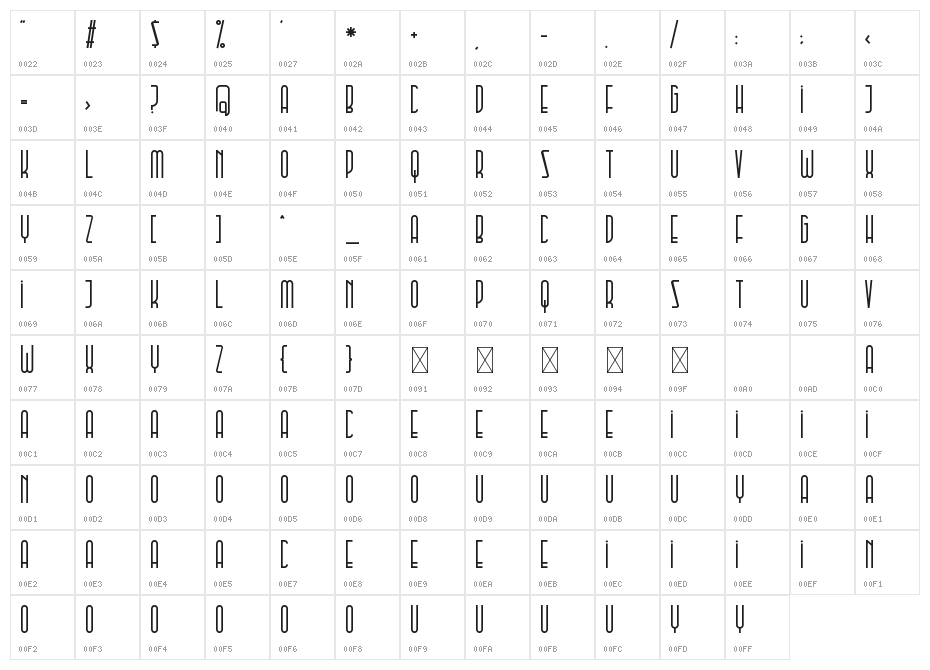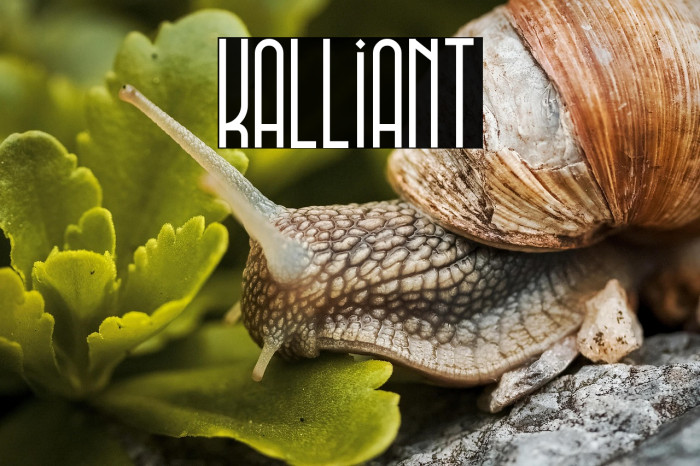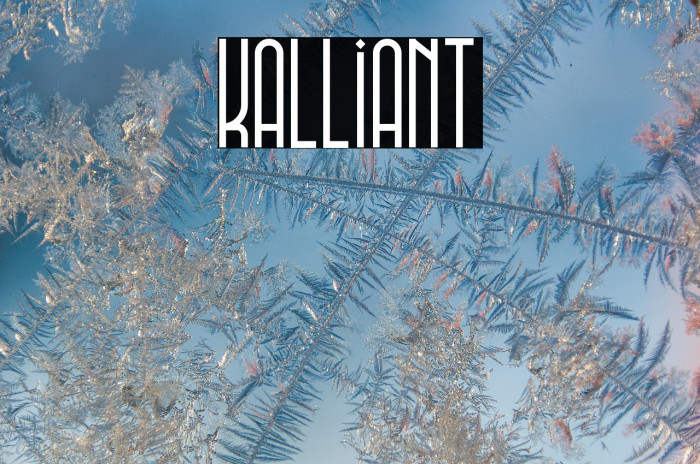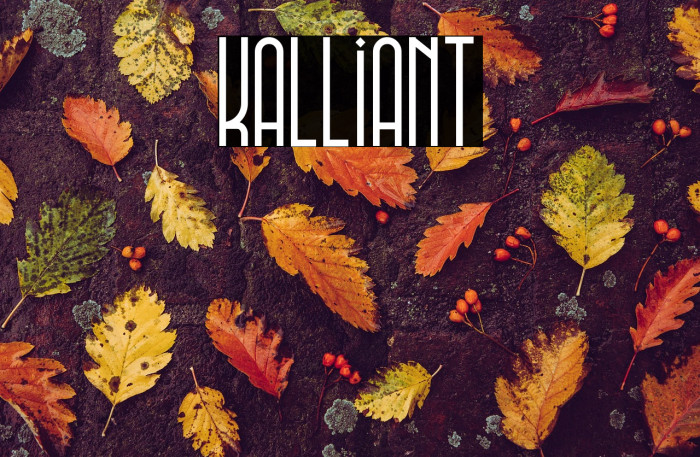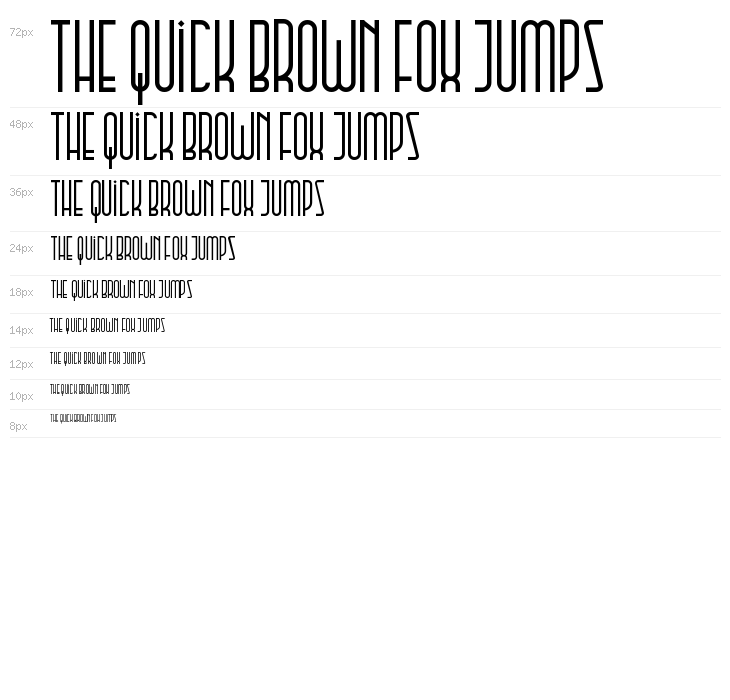
Kalliant Font
Kalliant Description
This font features a tall, narrow design with a distinctly modern and geometric aesthetic. The characters are elongated with a consistent stroke width, giving it a sleek and sophisticated appearance. The uppercase letters are particularly striking, with sharp angles and clean lines that create a sense of elegance and precision. The font's minimalistic style is complemented by its uniform character spacing, which enhances readability while maintaining a unique visual appeal. The special characters are designed to match the overall aesthetic, ensuring a cohesive look across all elements.
| Width | Condensed |
| Use Case | Headlines, Logos, Branding |
| Proposed Projects | Ideal for branding, editorial design, posters, and digital interfaces where a modern and sophisticated look is desired. |